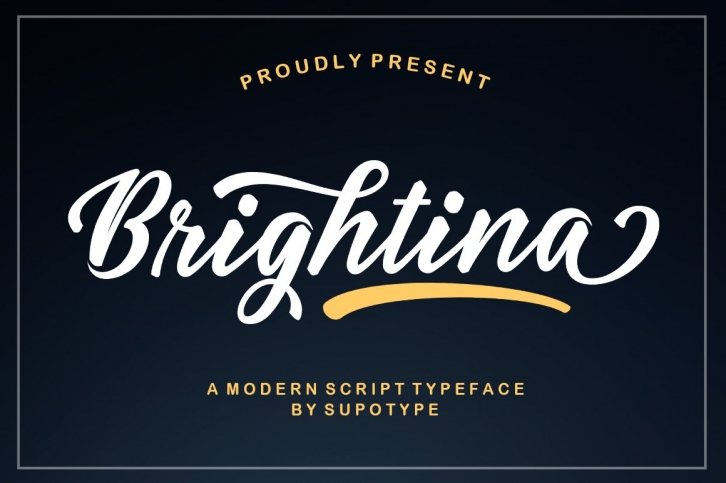
Brightina is a script typeface with noble and vintage looks. Created in response to current graphic design trends. Inspired by classic labels, vintage packaging, and old sign paintings. This Brightina Script will add a touch of worldly knowledge to your artwork, Classic nuance is perfect for those of you who need fonts for especially the types of logos, clothing, signage, branding, packaging, advertising, and more. I have designed a number of examples, so you can see how it can be used.
Brightina Script also has many alternatives for ascender, descenders, swash, and ligature. It also has several options for tail and underline. To provide a number of good possibilities to play and make some unique designs.
Brightina Script is equipped with:
• Uppercase, lowercase letters, numbers, punctuation & symbols
• Multilingual support
• Alternative style
• Swash
• Ligature